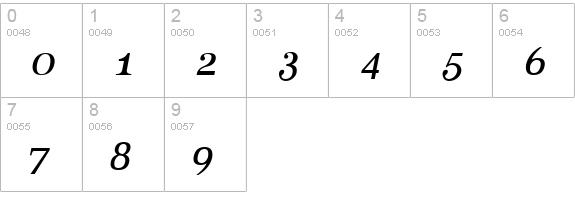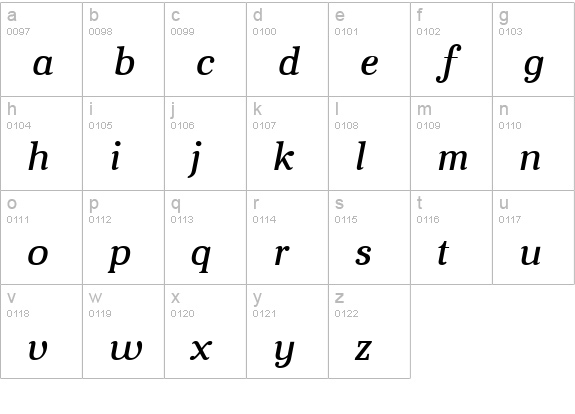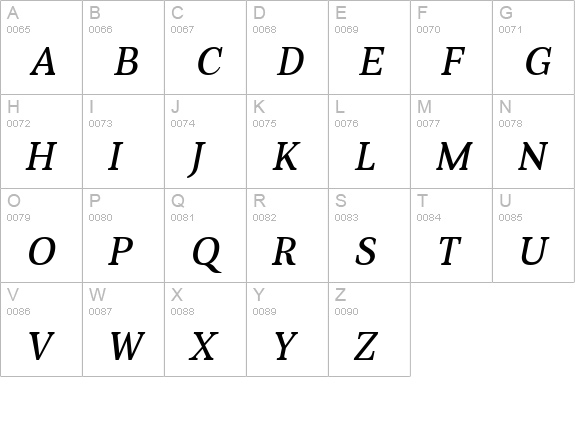
Aver Italic is a distinctive, italic variant in the Aver typeface family \xE2\x80\x94 well suited to design and typography projects.
Introducing Aver Italic, a stunning and versatile font that effortlessly combines elegance with a touch of modernity. Its flowing curves and slender letterforms exude a sense of sophistication, making it perfect for projects that require a refined and polished aesthetic. With its delicate strokes and graceful angles, Aver Italic offers a unique balance between classic and contemporary design. Whether used for branding, advertising, or editorial purposes, this font will captivate your audience and leave a lasting impression. One of the most remarkable aspects of Aver Italic is that it is freely available to download. This means you can access this exceptional font without any cost, making it an invaluable asset for designers, creatives, and typographic enthusiasts alike. Simply visit FontsMarket.com and discover the beauty of Aver Italic for yourself. Designed with meticulous attention to detail, Aver Italic ensures optimal legibility across various mediums and sizes. Its versatility shines through as it effortlessly adapts to both digital and print platforms, allowing you to achieve stunning results in any project. The timeless elegance of Aver Italic is enhanced by its extensive character set, which includes alternative glyphs and ligatures. This feature-rich font allows you to add an extra touch of uniqueness and personalization to your designs, elevating them to new levels of creativity. Whether you're crafting a refined logo, designing an elegant invitation, or creating a visually captivating website, Aver Italic is the perfect choice to bring your vision to life. Its seamless integration into any project, coupled with its freely accessible nature, makes this font a true gem in the typographic world. Experience the beauty and versatility of Aver Italic by downloading it for free at FontsMarket.com. Embrace its timeless charm and elevate your designs with this exceptional font that effortlessly combines elegance and modernity.